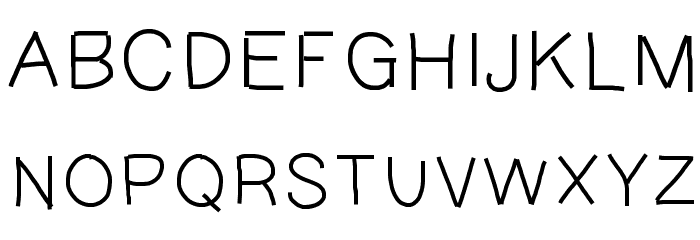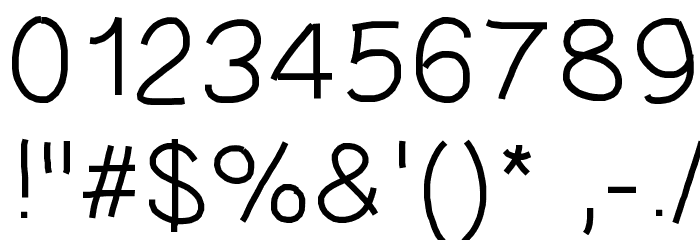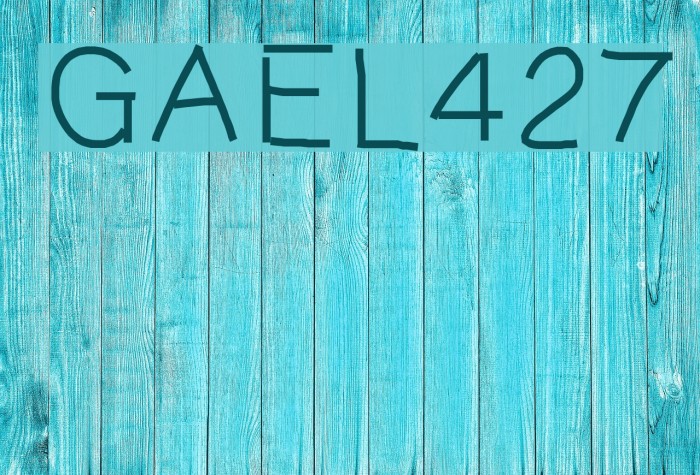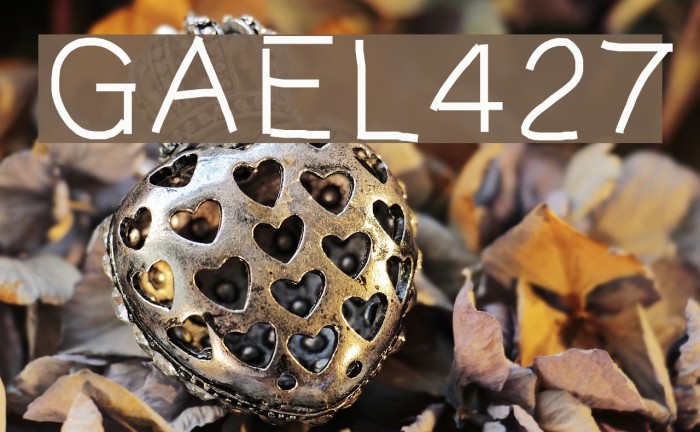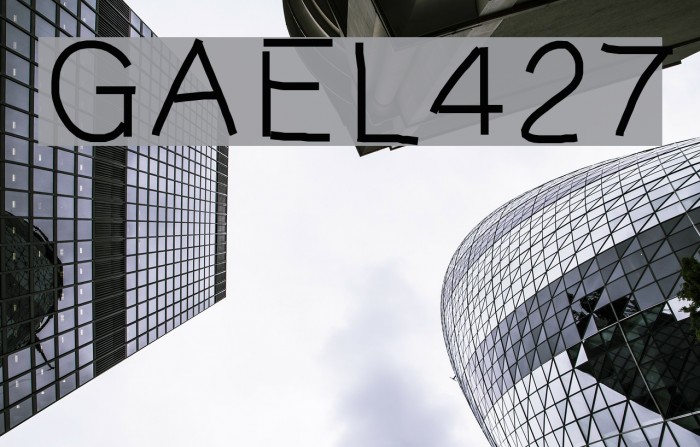
GAEL427 Font
This font features a clean and modern sans-serif style with uniform stroke widths, giving it a sleek and contemporary appearance. The characters are well-proportioned, with a geometric influence that is evident in the symmetrical shapes of the letters and numbers. The uppercase and lowercase letters maintain a consistent height, contributing to a balanced and harmonious look. The numerals are clear and legible, making them suitable for various applications. The special characters are designed to match the overall aesthetic, ensuring a cohesive visual experience. This font is versatile and can be used in a variety of design contexts.
A modern, geometric sans-serif font with uniform strokes and balanced proportions.